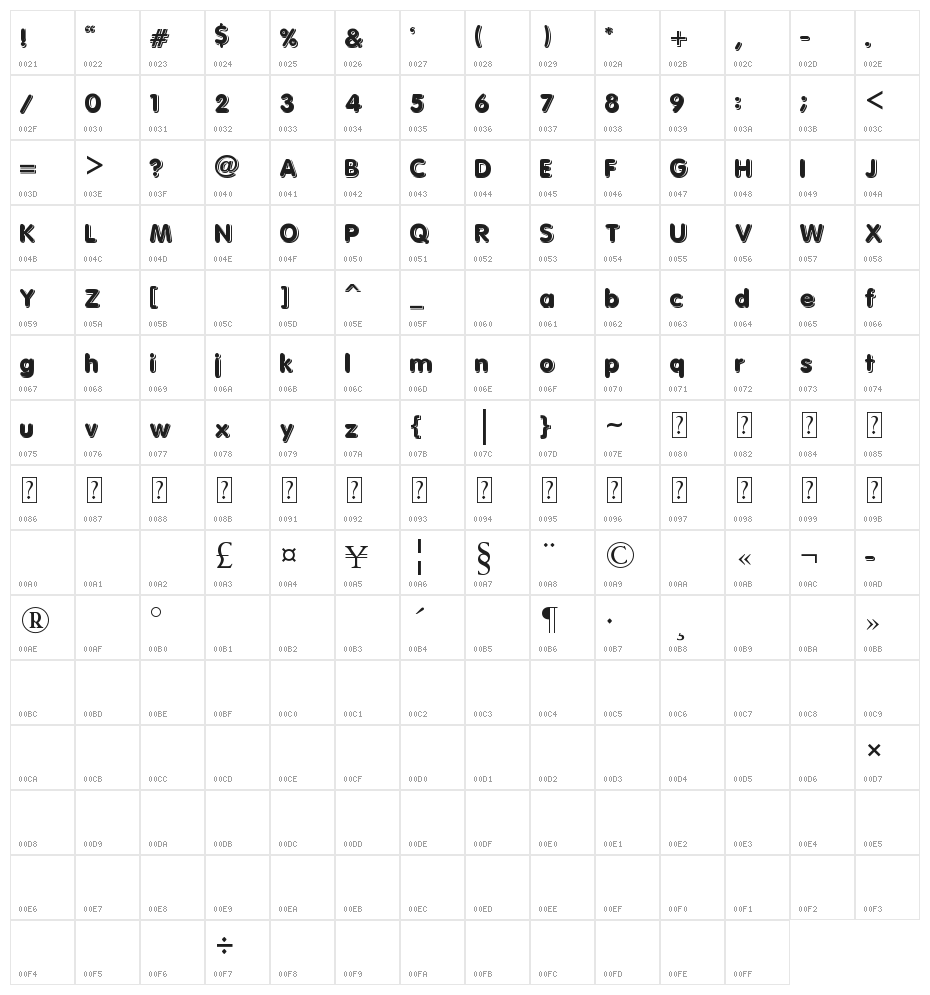
Solid 3d Font
Hareesh Seela
| Stile generale | Playful, Modern |
| Progetti proposti | Ideal for children's books, posters, video game graphics, and playful branding. |